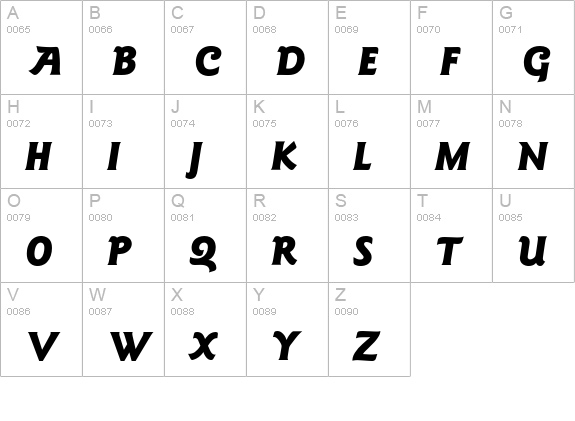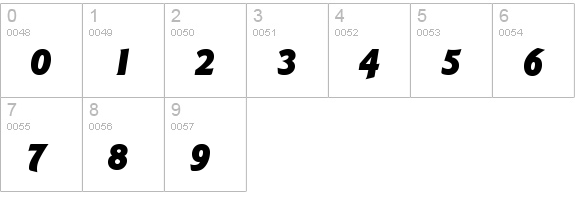
Goudy Sans* Black Italic Font Details
Goudy Sans* Black Italic is a maximum-weight, dramatic, italic variant in the Goudy typeface family \xE2\x80\x94 well suited to maximum-impact headlines, posters, and packaging.
Goudy Sans* Black Italic font is a bold and stylish typeface that exudes modernity and sophistication. With its sleek lines and elegant curves, this font is perfect for making a statement in any design project. The italic style adds a touch of flair and drama to your text, making it stand out and grab attention. What makes Goudy Sans* Black Italic font even more appealing is that it is available for free download at FontsMarket.com. This means you can easily access this high-quality font and use it in your personal or commercial projects without any cost. Whether you're designing a poster, logo, or website, this font will add a touch of professionalism and creativity to your work. Don't miss out on this opportunity to elevate your designs with Goudy Sans* Black Italic font - download it for free today!